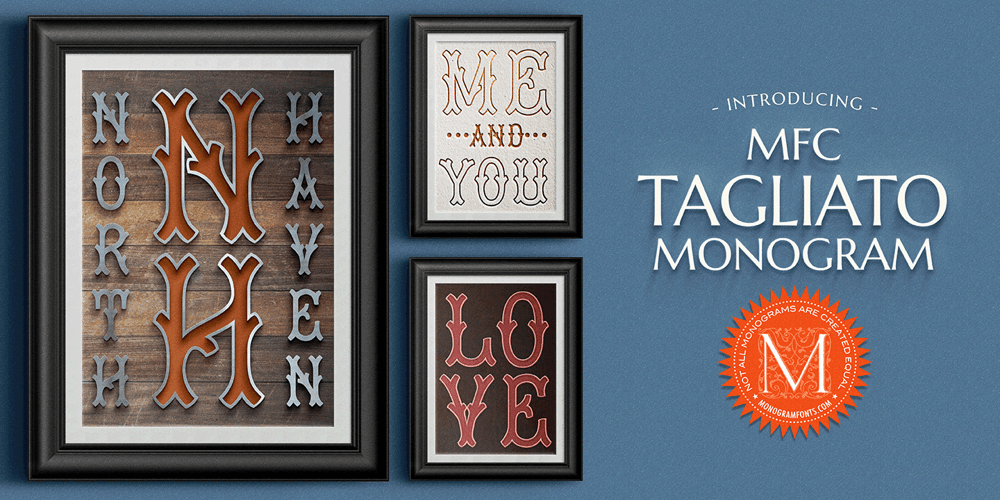
MFC Tagliato Monogram Font Family was designed by Brian J. Bonislawsky and published by Monogram Fonts Co.. MFC Tagliato Monogram contains 13 styles and family package options. The inspiration source for Tagliato Monogram is a decorative letterset (capitals only) from the 1899-1900 Treatise on Embroidery, Crochet and Knitting booklet by M. Hemingway & Sons Silk Co. The letterforms mimic clipped branches, “Tagliato” meaning “Clipped” in Italian. Tagliato Monogram can create one, two, or three letter monograms as well as basic headline and titling settings. It was originally designed to have outlined initials, but solid and outline versions have been created for more versatility and appeal. Download and view the Tagliato Monogram Guidebook if you would like to learn a little more. There is a guidebook for both the Pro and Standard fonts included in the font package. Tagliato Monogram comes complete with both Pro and Standard format fonts. For those with programs that can take advantage of OpenType features, the Pro fonts are for you, but for others without the ability to use OpenType features, we’ve created separate fonts that make up the styles contained in the Pro font.